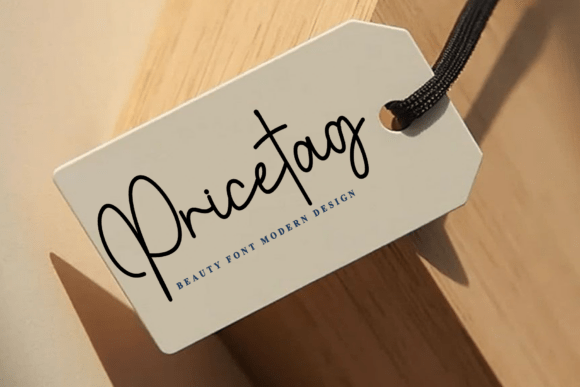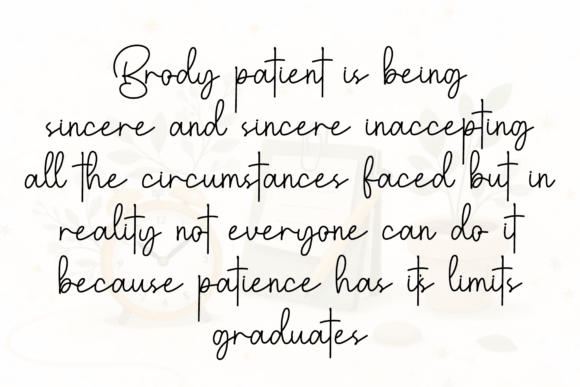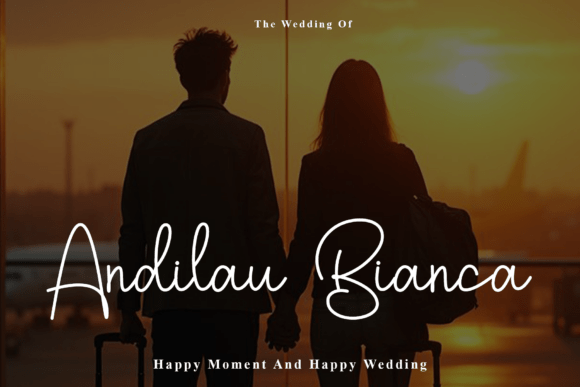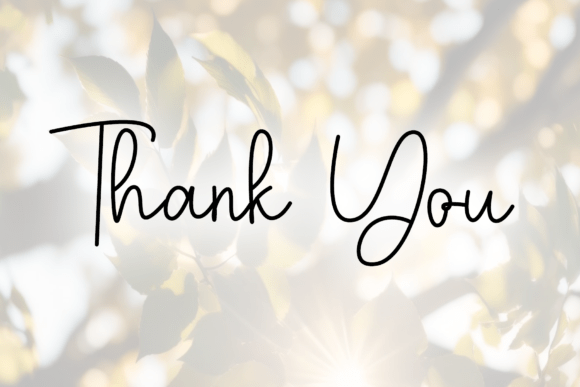
Discover the Charm of Citylights Font: Elevate Your Designs with a Timeless Handwritten Style
Are you on the hunt for a font that adds a touch of elegance and personality to your designs? Look no further than Citylights Font, a lovely and timeless handwritten font that is sure to capture the hearts of designers and crafters alike. With its unique and beautiful touch, Citylights is the perfect choice for creating eye-catching logos, branding, and quotes that will make your design come alive!
Handwritten fonts have a special charm that digital fonts often lack. They possess a certain warmth and character that can add a personal touch to any design. Citylights Font is no exception. Its handwritten style is reminiscent of a bygone era, evoking feelings of nostalgia and romance. Whether you’re designing a logo, creating a brand identity, or crafting a quote, Citylights Font is sure to bring a touch of sophistication and elegance to your work.
What Makes Citylights Font Special?
So, what sets Citylights Font apart from other fonts? For starters, every letter has a unique and beautiful touch that is sure to make your design stand out. The font’s handwritten style is both elegant and playful, making it perfect for a wide range of design applications. Whether you’re creating a logo for a fashion brand, designing a social media graphic, or crafting a quote for a inspirational poster, Citylights Font is sure to bring a touch of personality and charm to your work.
Citylights Font is an incredibly versatile font that can be used for a wide range of design applications. Its elegant and sophisticated style makes it perfect for creating logos, branding, and quotes that are sure to capture the attention of your audience. Whether you’re designing a logo for a new business, creating a brand identity for an existing company, or crafting a quote for a social media post, Citylights Font is sure to bring a touch of class and sophistication to your work.
Tips for Using Citylights Font
Here are a few tips for getting the most out of Citylights Font:
- Use Citylights Font for headlines and titles to add a touch of elegance and sophistication to your design.
- Pair Citylights Font with other fonts to create a unique and eye-catching combination.
- Use Citylights Font for body copy to add a personal touch to your design.
Why Designers and Crafters Love Citylights Font
Designers and crafters love Citylights Font for its unique and beautiful style. Here are just a few reasons why:
- Citylights Font is easy to read and understand, making it perfect for designs where clarity is key.
- The font’s handwritten style adds a personal touch to any design, making it perfect for creating unique and eye-catching logos, branding, and quotes.
- Citylights Font is incredibly versatile, making it perfect for a wide range of design applications.
In conclusion, Citylights Font is a lovely and timeless handwritten font that is sure to elevate your designs to the next level. With its unique and beautiful touch, Citylights Font is perfect for creating eye-catching logos, branding, and quotes that will make your design come alive! Whether you’re a designer, crafter, or simply someone who loves typography, Citylights Font is sure to capture your heart.